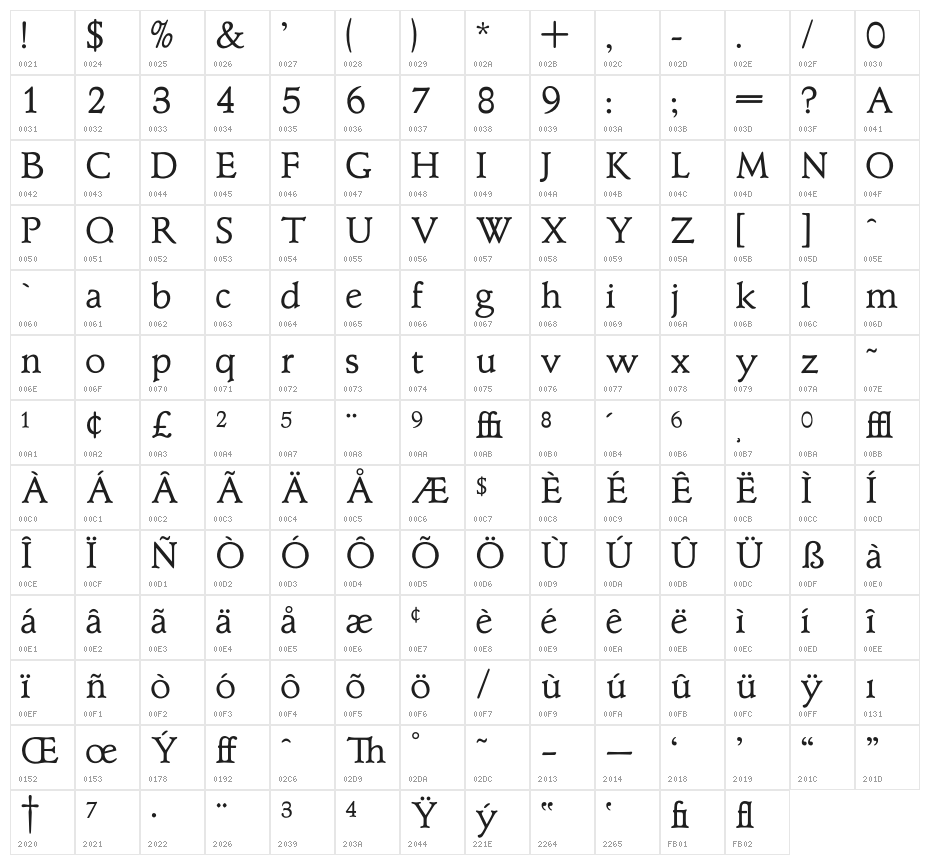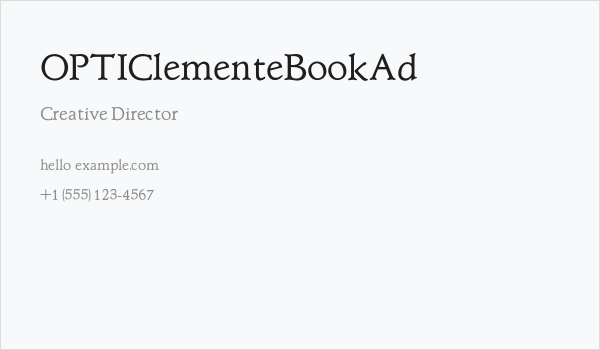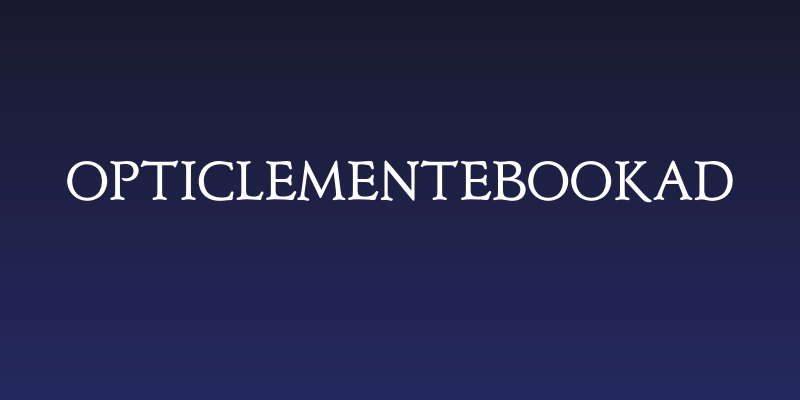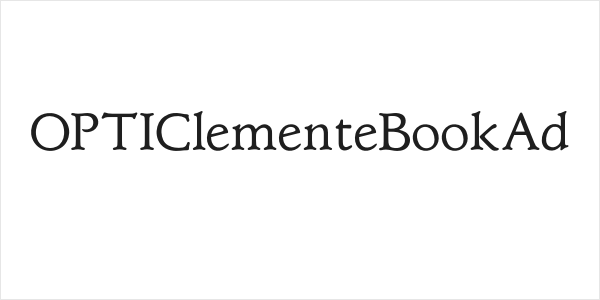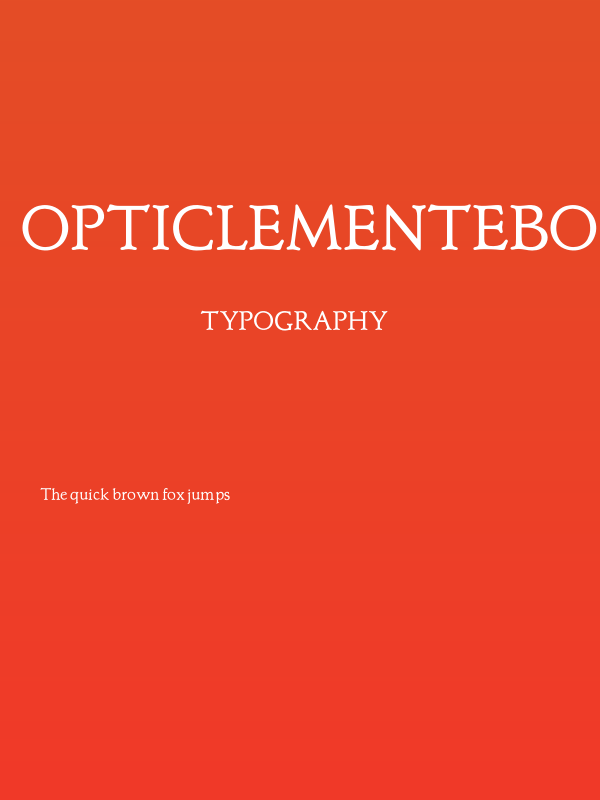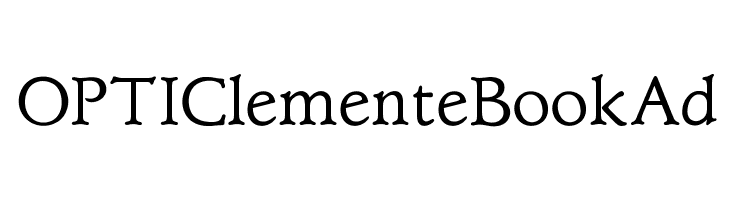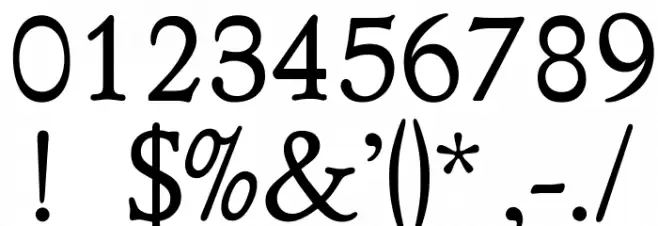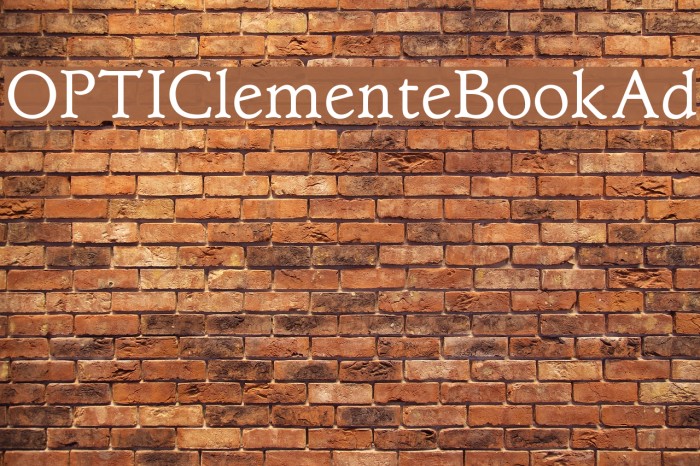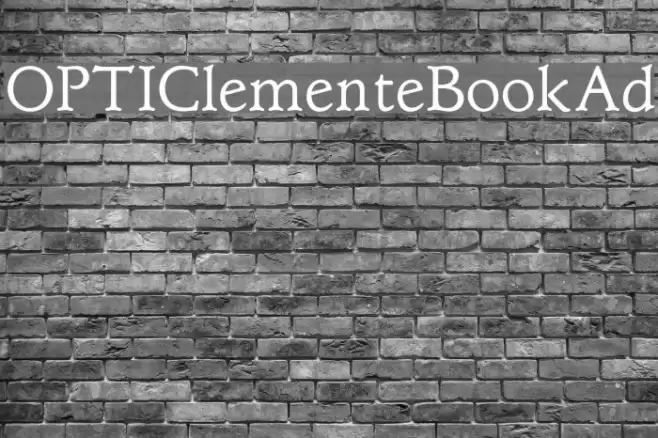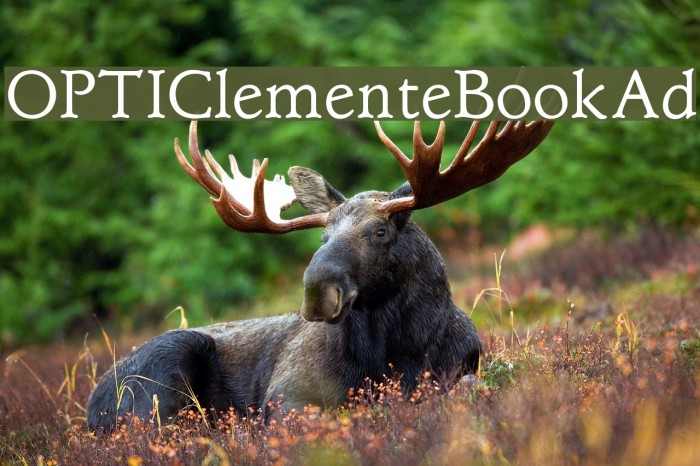
OPTIClementeBookAd Font
OPTIClementeBookAd Description
This font features a classic serif style with a touch of elegance and sophistication. The uppercase letters are bold and well-defined, with sharp serifs that give a sense of authority and tradition. The lowercase letters maintain a consistent style, offering a smooth transition between characters. Numbers are clear and legible, making them suitable for both formal and casual settings. Special characters are distinct and harmonize well with the overall design, ensuring versatility in various applications. The font's design is timeless, making it suitable for a wide range of projects.
| Overall Style | Classic |
| Use Case | Headlines, Body text, Logos |
| Proposed Projects | Ideal for book covers, formal invitations, branding, and editorial design. |